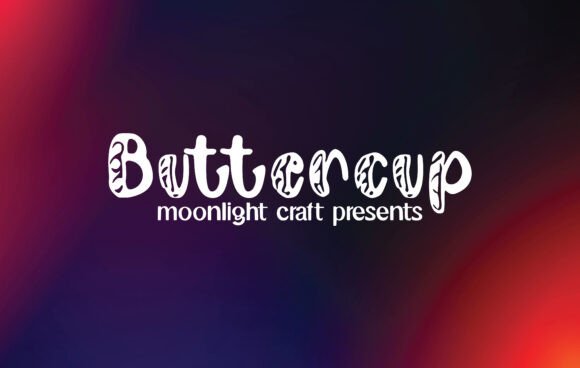
The Buttercup Font: A Beautiful Handwritten Font to Elevate Your Designs
I’ll never forget the time I was working on a branding project for a new coffee shop. I had a clear vision of what I wanted to create, but I just couldn’t find the right font to bring it all together. The client wanted something warm, inviting, and uniquely handwritten. That’s when I stumbled upon the Buttercup font. It was like a breath of fresh air – the perfect blend of elegance and playfulness. In this article, I’ll share my experience with the Buttercup font, its features, and how to make the most of it in your designs.
An Honest Review of Buttercup Font
So, what makes the Buttercup font so special? Let’s dive into the good stuff and a few quirks I’ve discovered.
What I Love About Buttercup Font
- ✨ Beautifully crafted letters: Each letter is carefully designed to be unique and visually appealing.
- ✅ Versatile: Works great for logos, branding, quotes, and more.
- 💫 Elegant yet playful: Perfect for designs that need a touch of sophistication and whimsy.
While the Buttercup font is amazing, there are a few things to keep in mind:
- 🤔 Legibility at small sizes: Like many handwritten fonts, it can get a bit tricky to read at very small sizes.
- ⚠️ Limited use in formal contexts: Its playful nature might not be suitable for very formal or corporate designs.
The Backstory of Buttercup Font
The Buttercup font was created by a talented type designer who aimed to bring a touch of elegance and playfulness to the digital world. Inspired by traditional handwriting and the beauty of nature, this font is designed to evoke feelings of warmth and creativity. Whether you’re working on a branding project, crafting a unique logo, or simply adding a personal touch to your quotes, Buttercup font is an excellent choice.
Q: Is Buttercup font suitable for body text?
A: While Buttercup font is beautiful, it’s primarily designed for headlines and short paragraphs. For longer body text, a more straightforward font might be more readable.
Q: Does Buttercup font support OpenType features?
A: Yes, Buttercup font supports various OpenType features, including ligatures and stylistic alternates, which can enhance your typography.